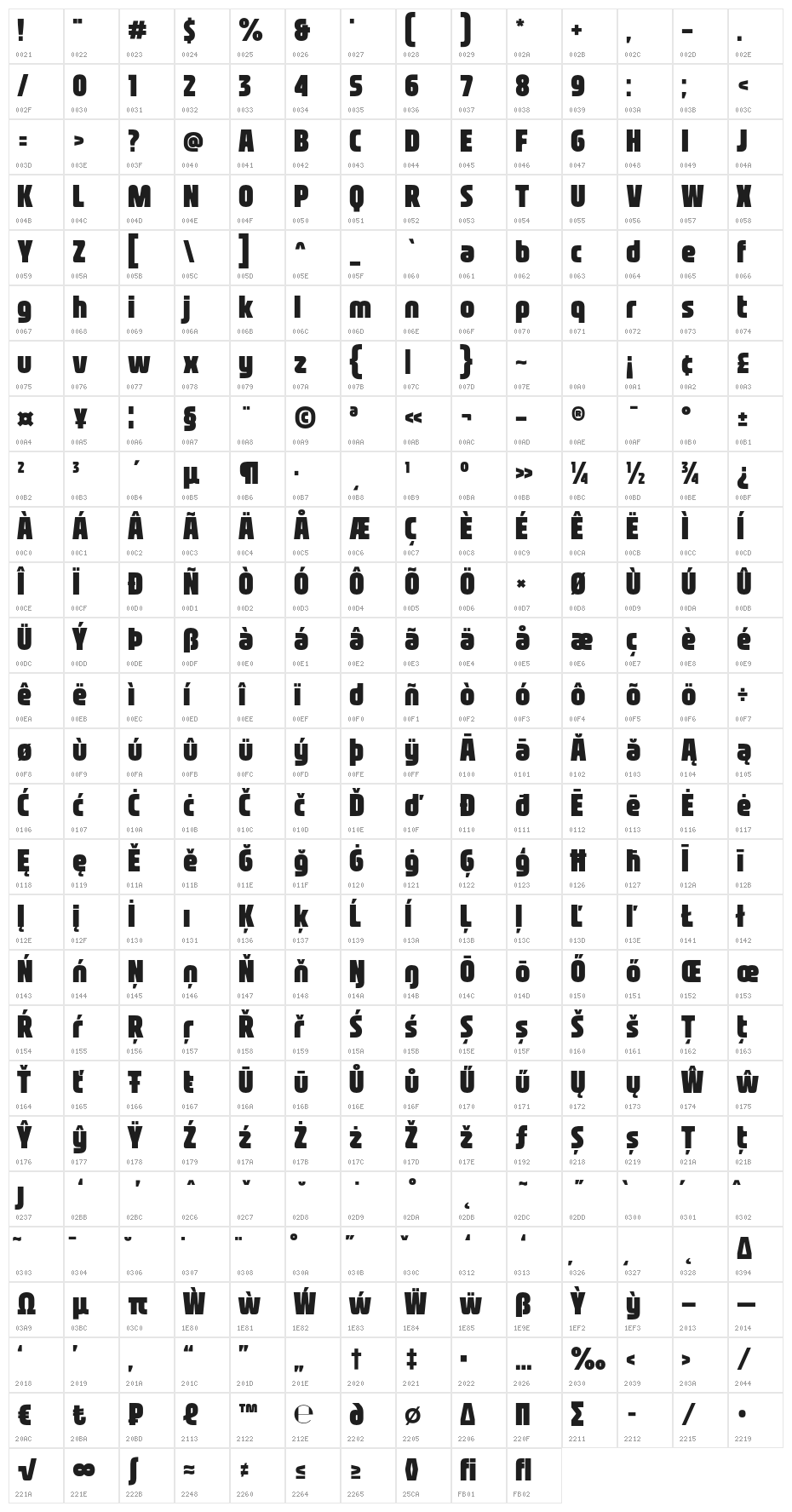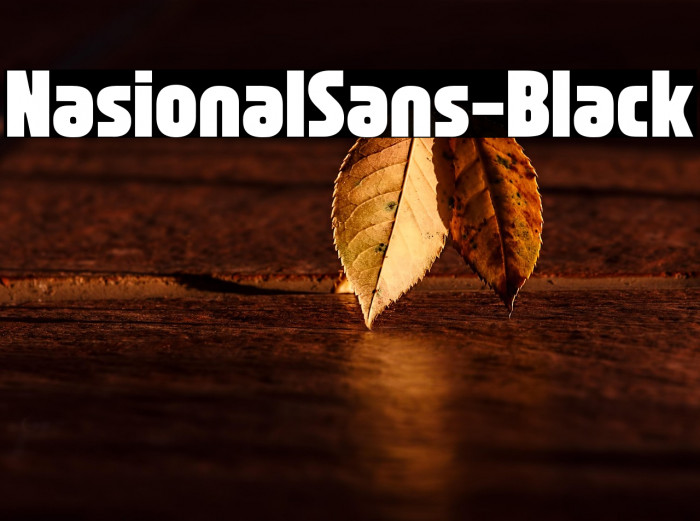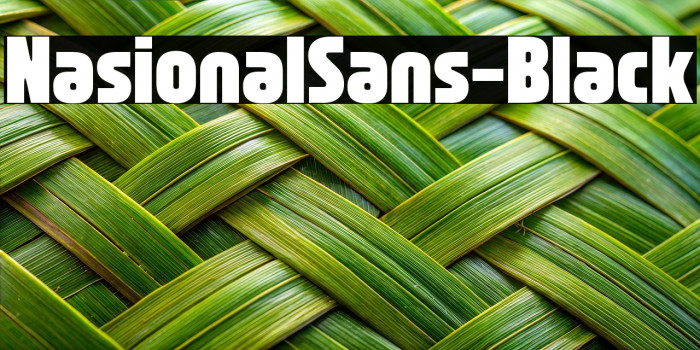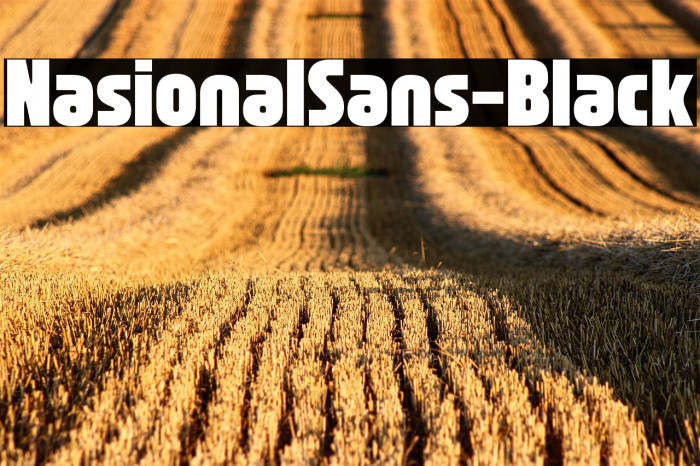
NasionalSans-Black Font
NasionalSans-Black Description
This font is a bold and impactful sans-serif typeface, characterized by its thick, uniform strokes and strong presence. The letters are wide and have a slightly condensed appearance, which enhances their boldness. The uppercase and lowercase letters maintain a consistent style, with rounded edges that soften the overall look. The numerals are equally bold, ensuring they stand out in any context. Special characters are designed to match the robust style of the alphabet, making this font versatile for various uses.
| Proposed Projects | Ideal for headlines, posters, branding, and any project requiring a strong visual impact. |